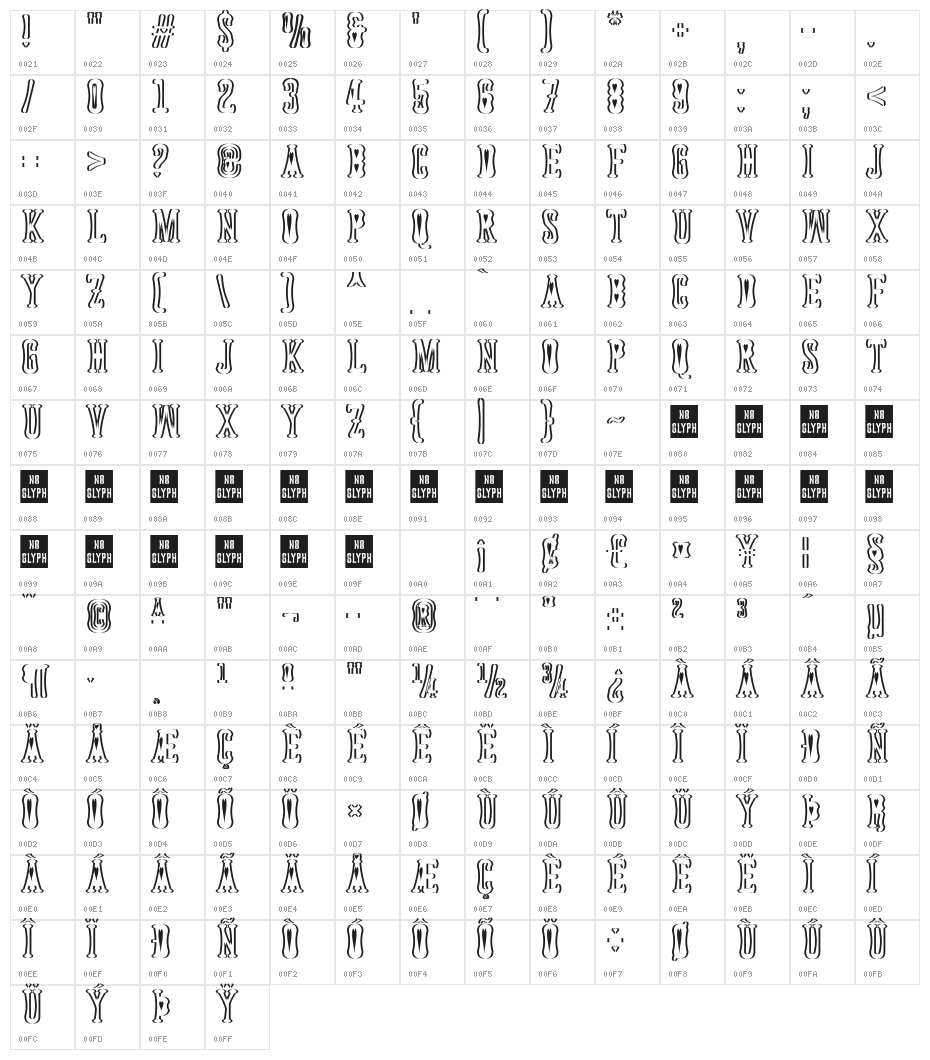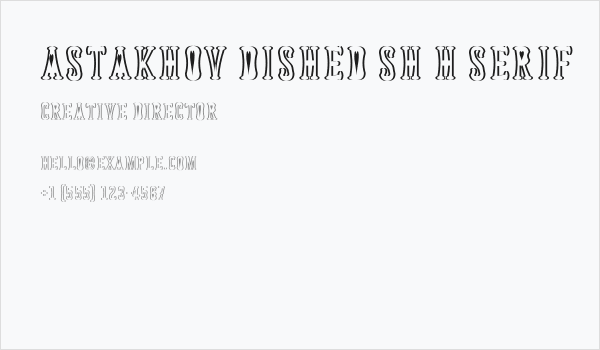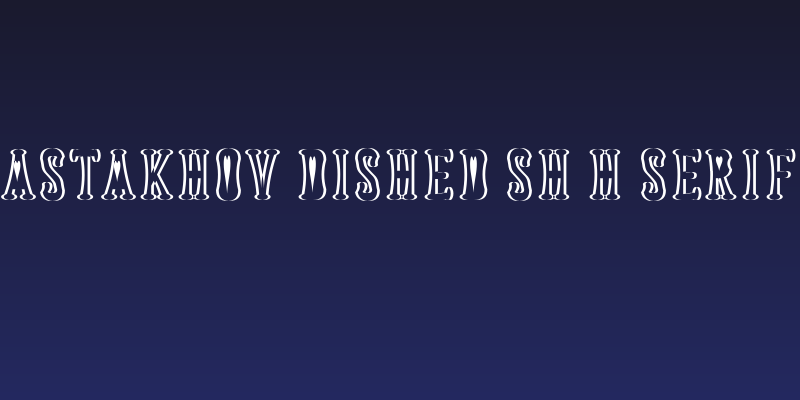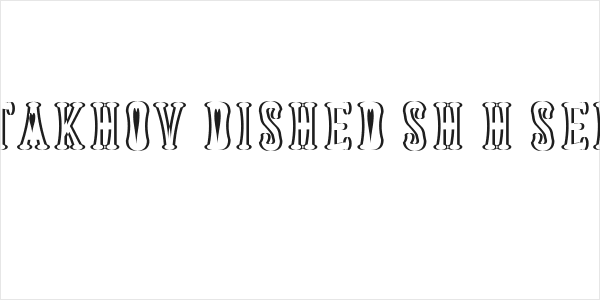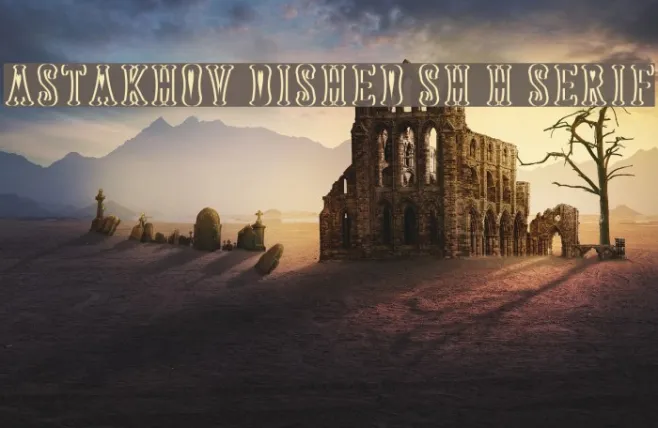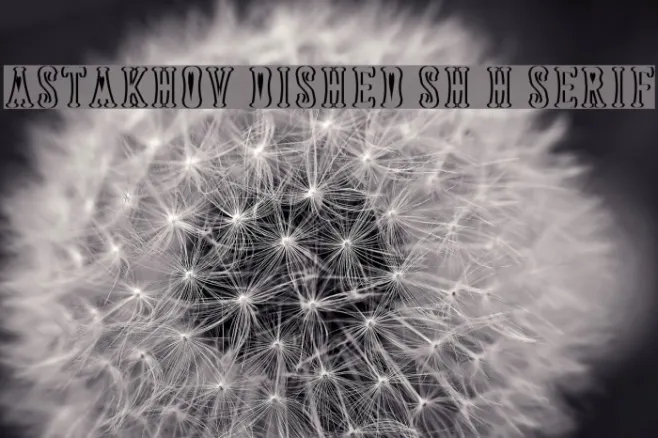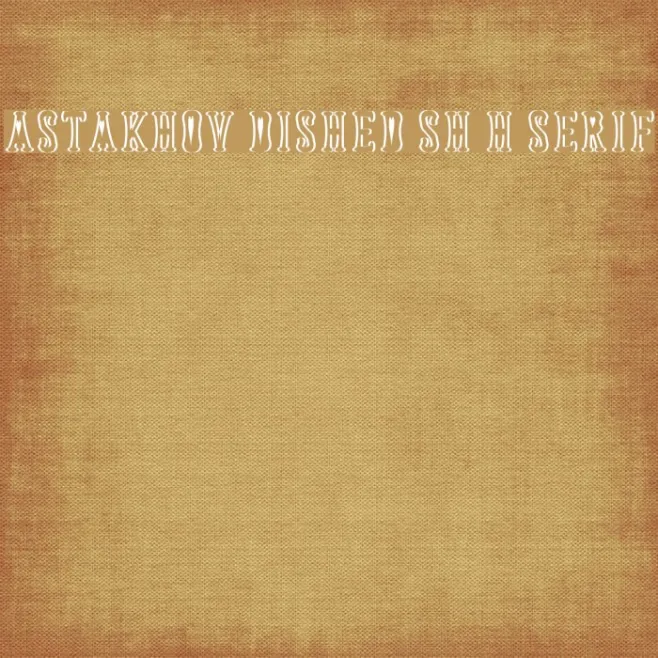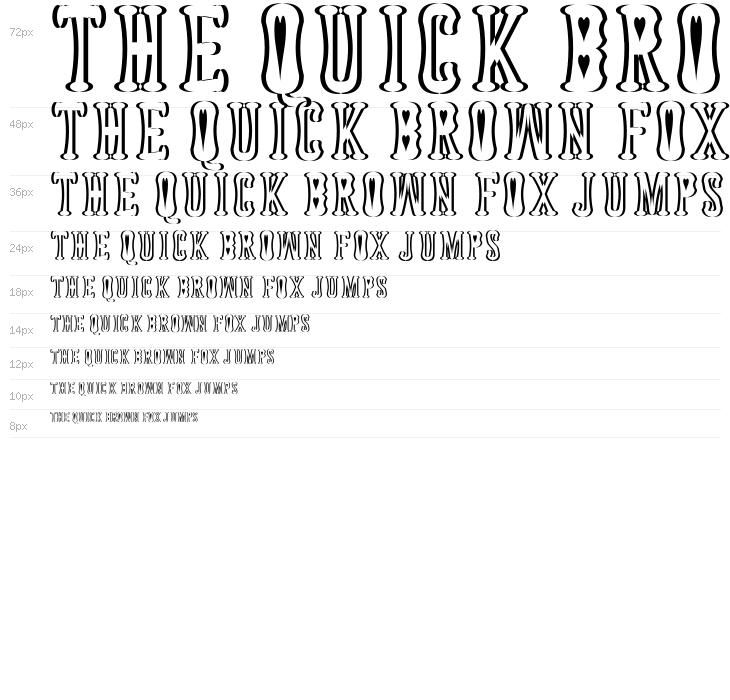
Astakhov Dished Sh H Serif Font
Astakhov Dished Sh H Serif Description
This font features a unique and decorative style with a bold presence. Each character is designed with intricate details, incorporating heart shapes within the strokes, which adds a playful and whimsical touch. The letters are serifed, with pronounced edges and curves that give them a vintage feel. The numbers and special characters follow the same ornate design, making the font cohesive and visually striking. This font is ideal for projects that require a standout display typeface with a touch of elegance and creativity.
| Proposed Projects | Perfect for wedding invitations, greeting cards, posters, and branding that requires a romantic or whimsical touch. |